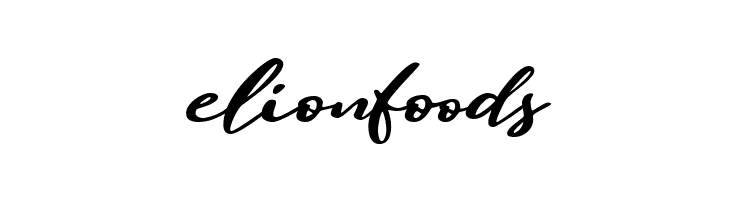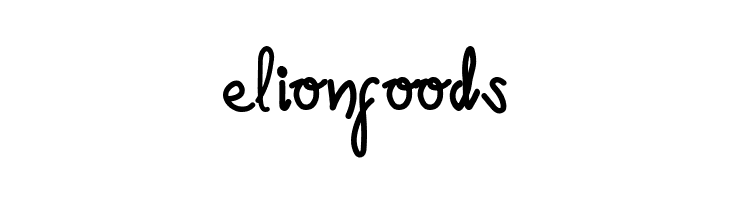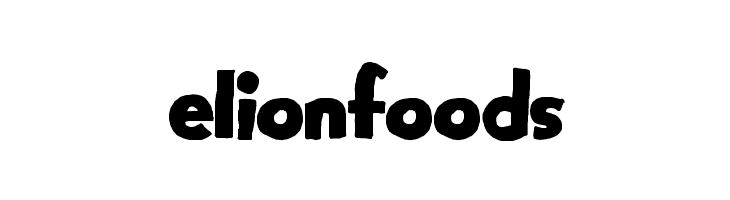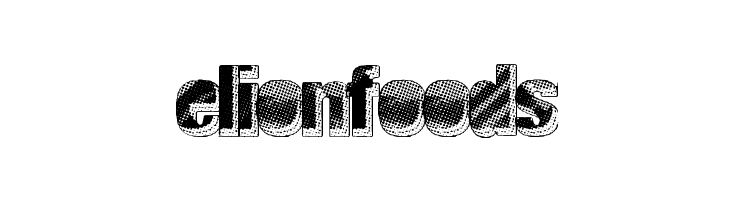
A whimsical script font with flowing, interconnected letterforms and decorative swirls.
A cursive script font with elegant, flowing strokes and interconnected letters.
A bold, decorative font with a vintage halftone texture.
A bold, playful font with rounded, cartoonish characters and tight spacing.
A bold, distressed font with a rugged, grunge aesthetic.
A bold, blackletter-style font with sharp, angular lines and intricate details.
An elegant and flowing script font with smooth, cursive letterforms.
A bold, playful font with a hand-drawn, artistic style.